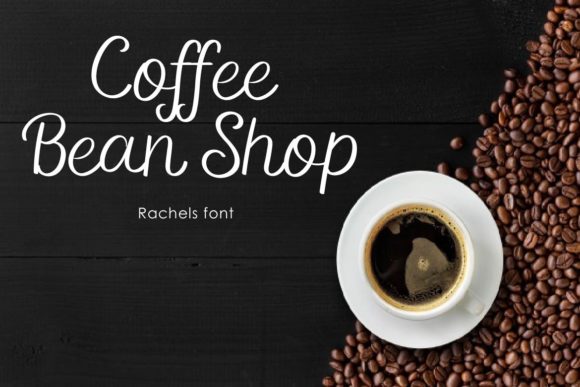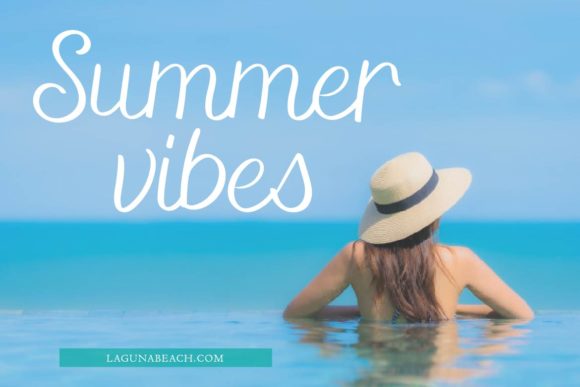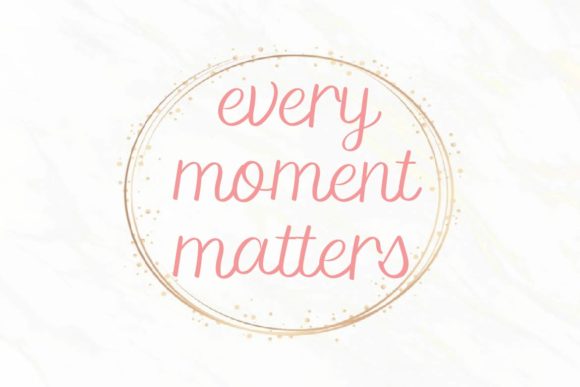
Introduction to Rachels Font
Do you remember that moment when a single font changed the entire direction of your creative project? For many designers, it’s a familiar feeling. It’s like stumbling upon a hidden treasure that elevates your ideas and takes them to the next level. And that’s exactly what the Rachels Font does – it adds a touch of elegance and sophistication to any design, making it truly unforgettable.
As a valuable design resource, the Rachels Font is perfect for those who want to create something truly special. Its delicate, flowing characters are not only beautiful but also well-balanced, making it an ideal choice for a wide range of designs. Whether you’re working on a project that requires a transparent background or need a high-quality font for your next creative endeavor, Rachels Font is definitely worth considering.
Key Features of Rachels Font
- High-quality design resource for creative projects, suitable for various applications
- Font size: 256 glyphs, with a range of characters and symbols for diverse design needs
- Unique characteristics: elegant and modern design, perfect for branding and editorial projects
Honest Review: Rachels Font
I recently had the chance to work with Rachels Font for a creative project, and I must say it was a mixed bag. On one hand, I was impressed by the high quality of the font, which added a touch of sophistication to my design. The transparent background made it easy to layer and customize, which was a huge plus for my design resource.
What works well: ✨ High-quality design, ✨ Transparent background, ✨ Free download (a huge plus for budget-conscious designers like myself)
However, I did encounter some limitations while using Rachels Font. Here are a few things to keep in mind: ⚠️ Limited font styles, ⚠️ Not ideal for large-scale projects (the font can become pixelated at high resolutions)
Overall, I’d say Rachels Font is a solid choice for small to medium-sized design projects. While it may not be the most comprehensive font, its high quality and transparent background make it a great resource for designers looking for a free download. With a bit of creative workarounds, you can still achieve amazing results with Rachels Font.
- Perfect for: small to medium-sized design projects
- Not ideal for: large-scale projects or complex designs
- Key features: high-quality design, transparent background, free download
Rachels Font
Tips for Getting the Most Out of Rachels Font
To get the most out of Rachels Font, use it for high-quality design projects, such as creating a logo or a brochure. You can also use it for social media graphics and flyers. Make sure to customize the font settings to match your design style.
Rachels Font is a versatile design resource that can be used for various creative projects, including branding, advertising, and educational materials. Its transparent background makes it easy to use for overlay designs. With its high-quality design, Rachels Font is a valuable addition to any design library.
Is Rachels Font suitable for designs with transparent backgrounds?
Rachels Font is designed to work well with transparent backgrounds, thanks to its high-quality design and transparent background capabilities. This makes it an excellent choice for designers working on creative projects that require a clean and modern look.